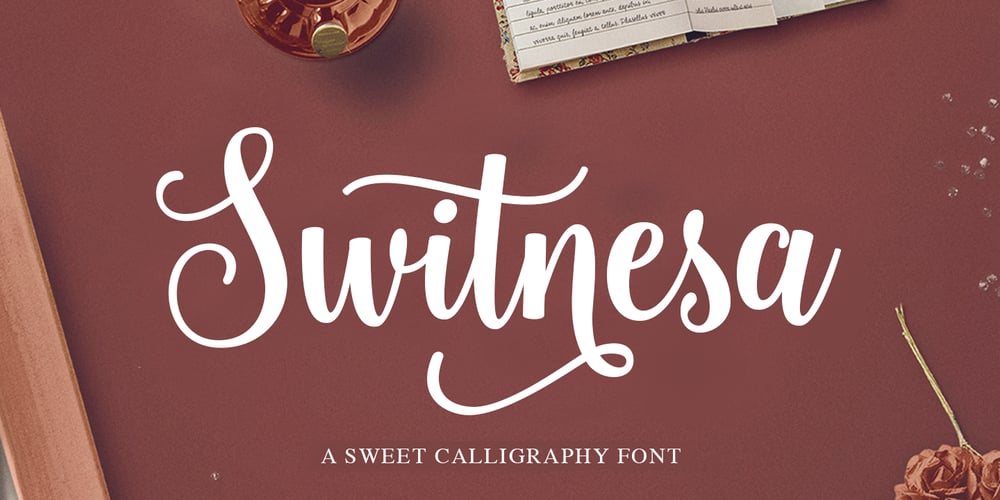
Switnesa Script
Switnesa Script font
Switnesa Script Font Family was designed by Seniors Studio and published by Seniors Studio. Switnesa Script contains 1 styles and family package options. Switnesa Script is a soft and sweet calligraphy font with characters that dance along the baseline. It has a casual and yet elegant touch. It can be used for various purposes such as logos, wedding invitations, headings, t-shirts, letterhead, signage, lables, news, posters, badges etc. The fonts include OpenType features with stylistic alternates, ligatures and multiple language support.